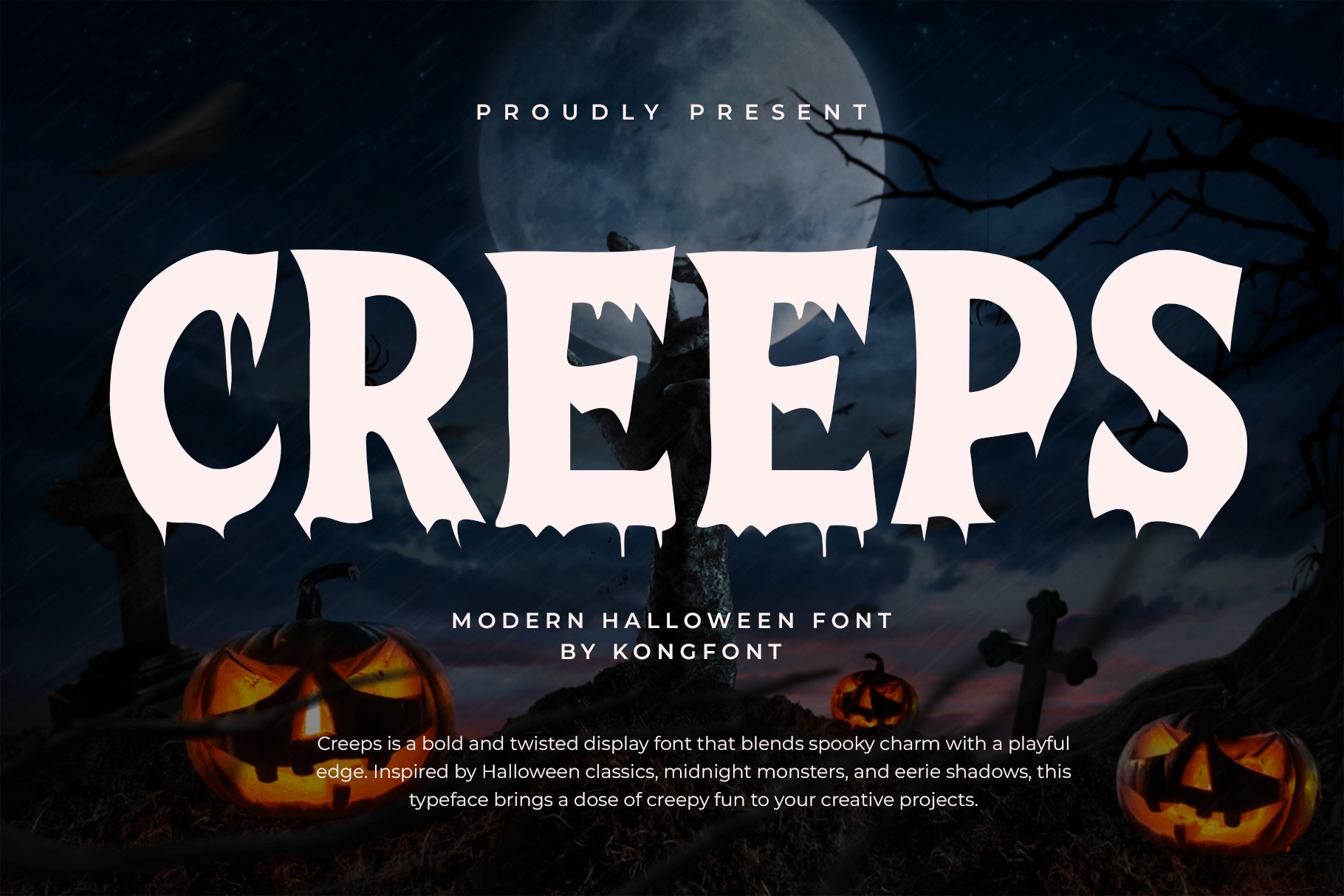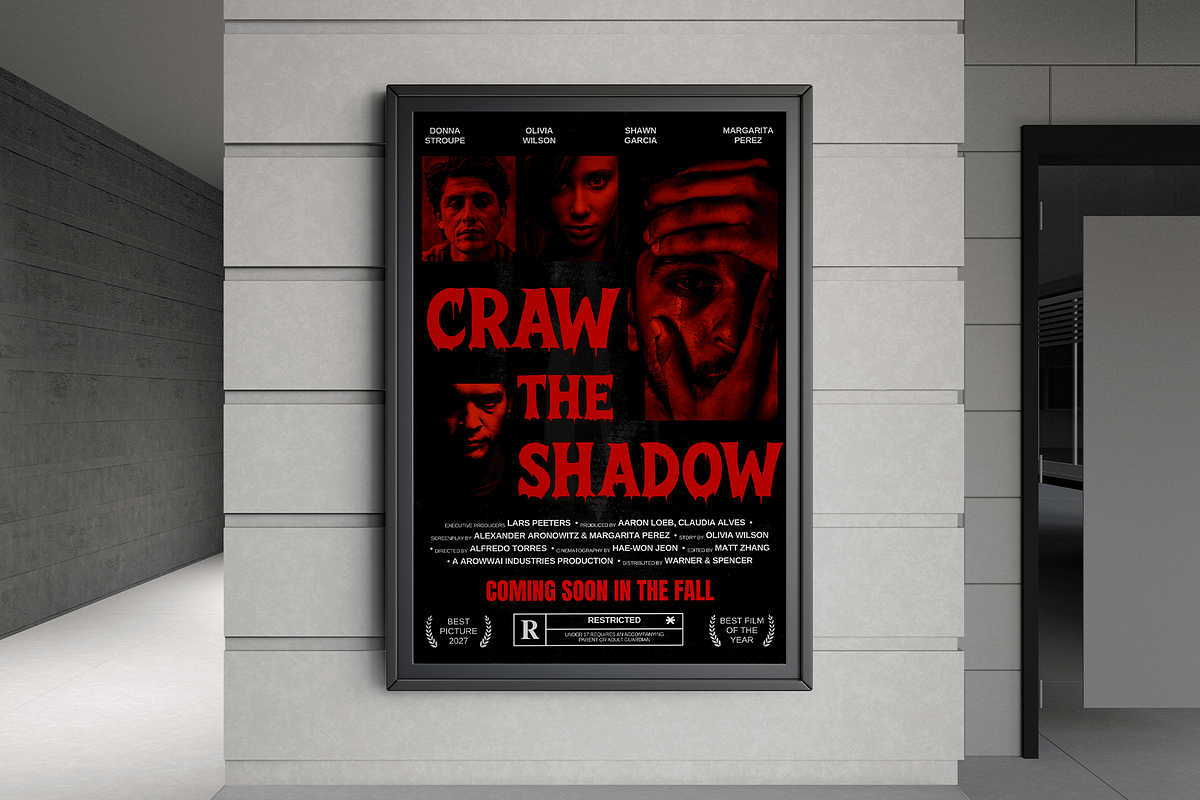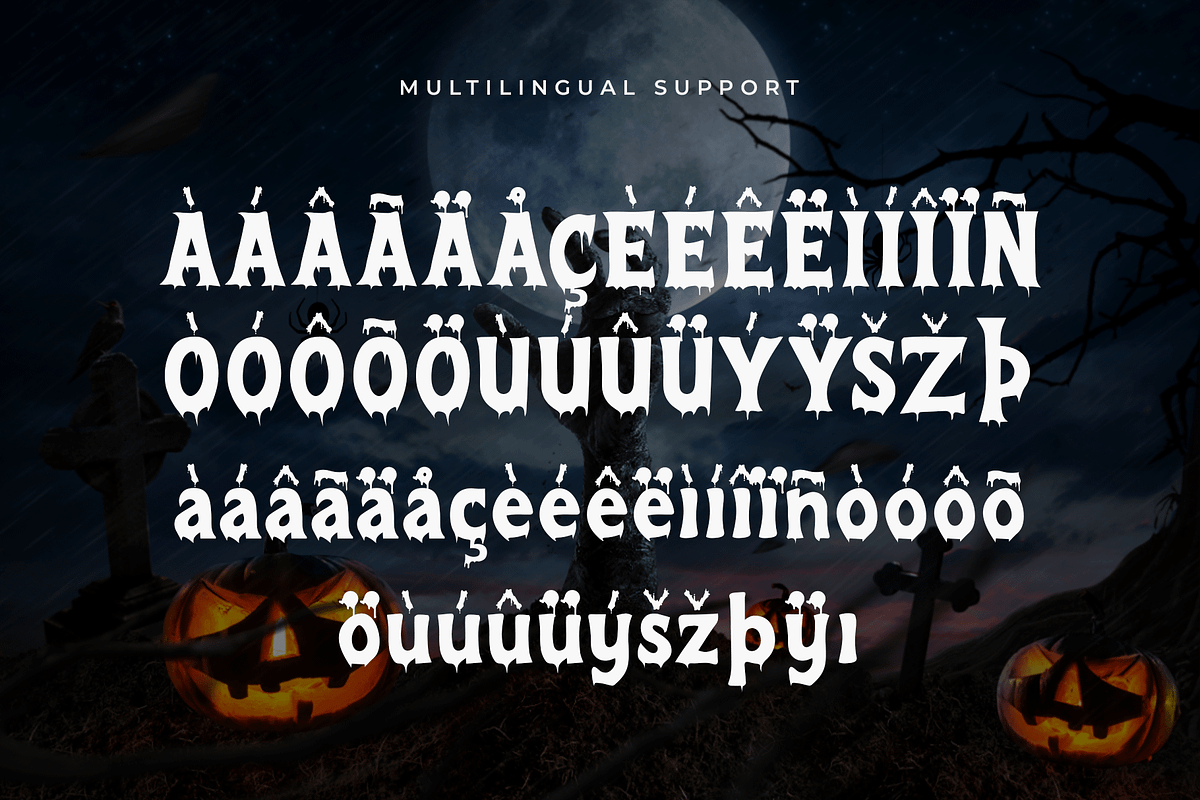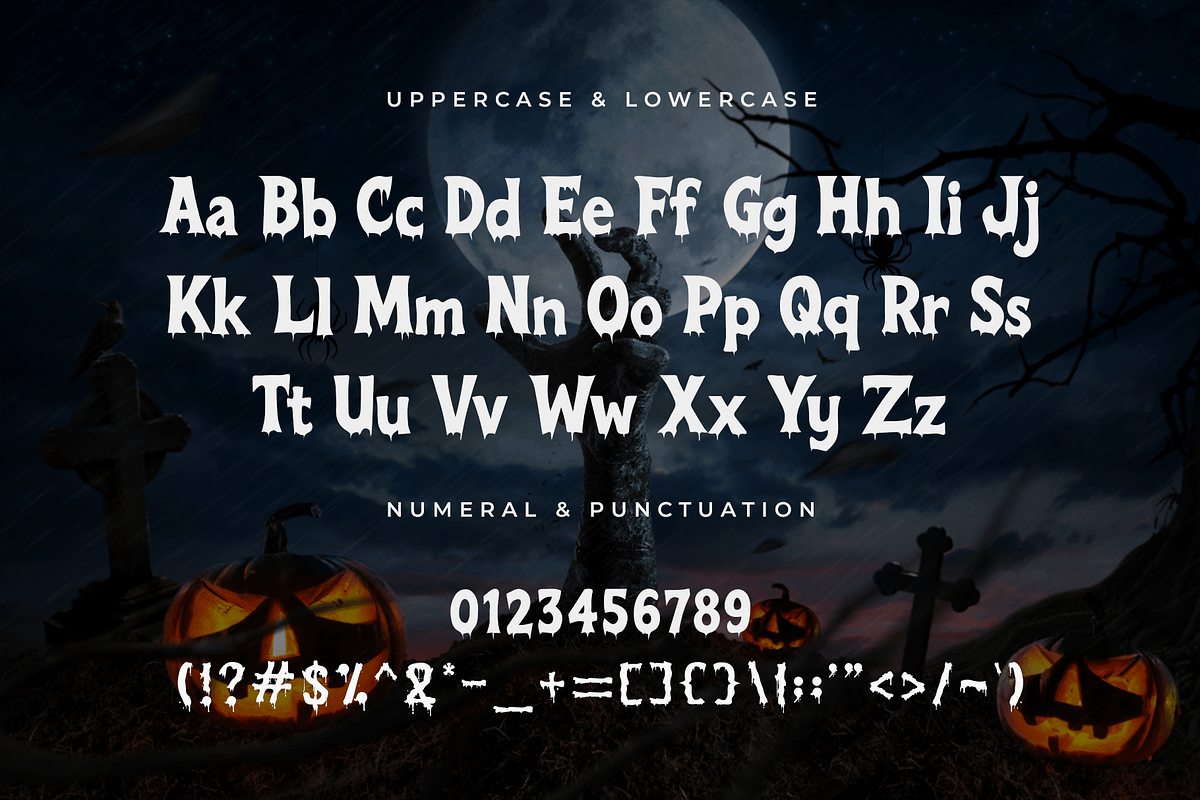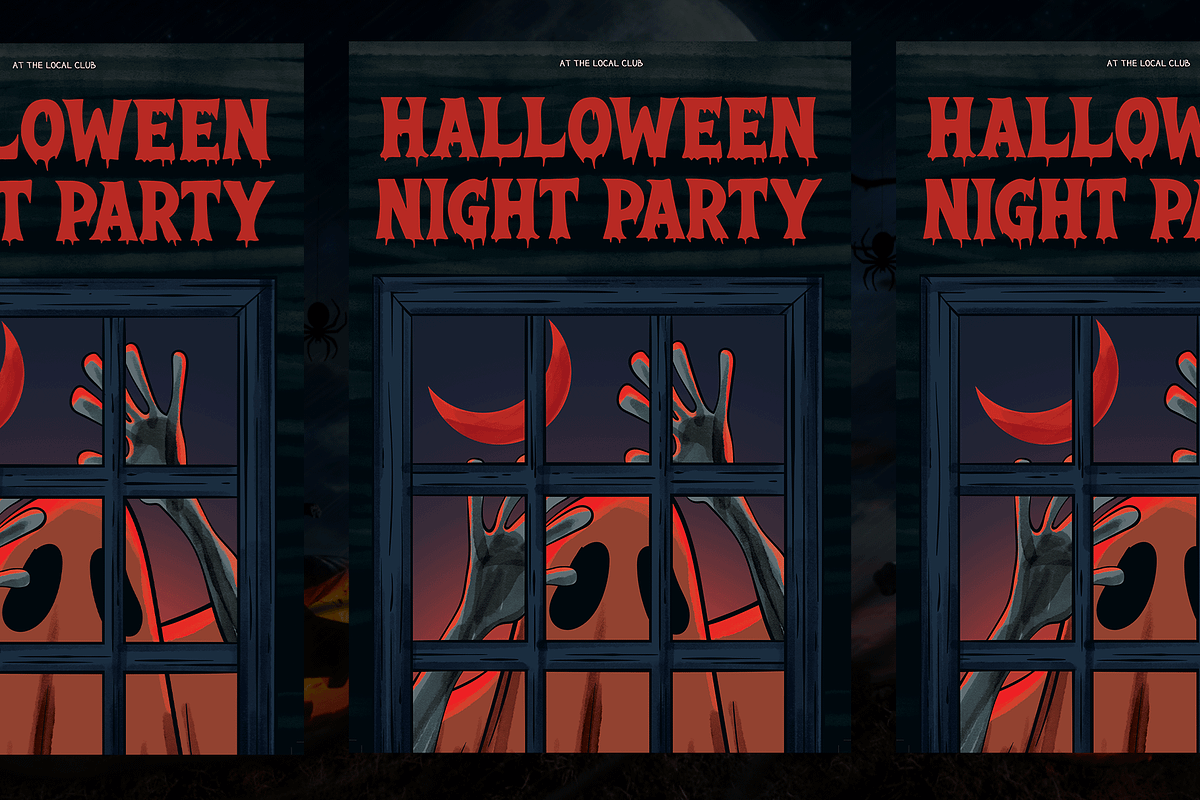
Creeps - Modern Halloween Font
Meet "Creeps," a modern Halloween font designed to bring playful fright and stylish charm to your seasonal creations. With its quirky curves, spooky accents, and bold presence, Creeps strikes the perfect balance between festive fun and modern design.
Ideal for Halloween party invitations, themed posters, seasonal product packaging, social media graphics, and more, this typeface ensures your designs stand out with a hauntingly delightful appeal. Its clean yet characterful letterforms make it versatile for both large, attention-grabbing titles and smaller, decorative text.
Creeps comes complete with uppercase, lowercase, numerals, punctuation, and multilingual support, giving you all the tools you need to craft spine-tingling designs that still feel fresh and contemporary.